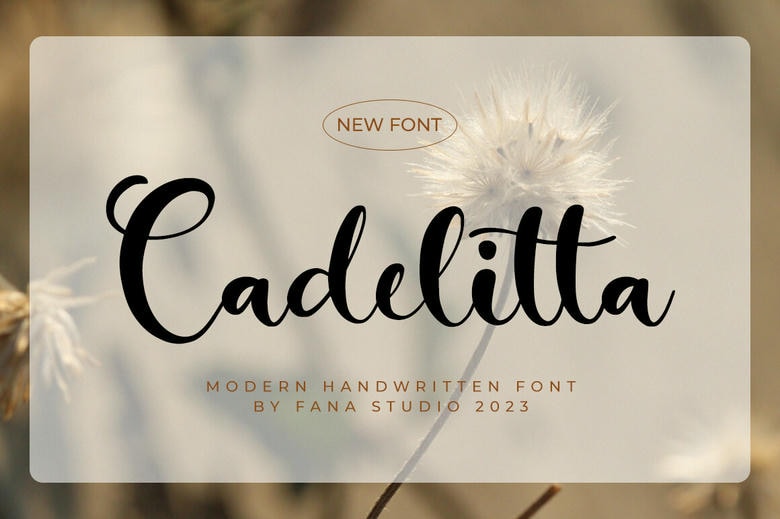
Cadelitta Font
The Cadelitta Script is perfect for creating many text-related project such as logos & branding elements, invitations, stationery, wedding designs, social media posts and advertisements, product packaging, product designs, labels, photographs, watermarks, special events, or anything that may need technical handwriting.
Cadelitta Handwritten Font